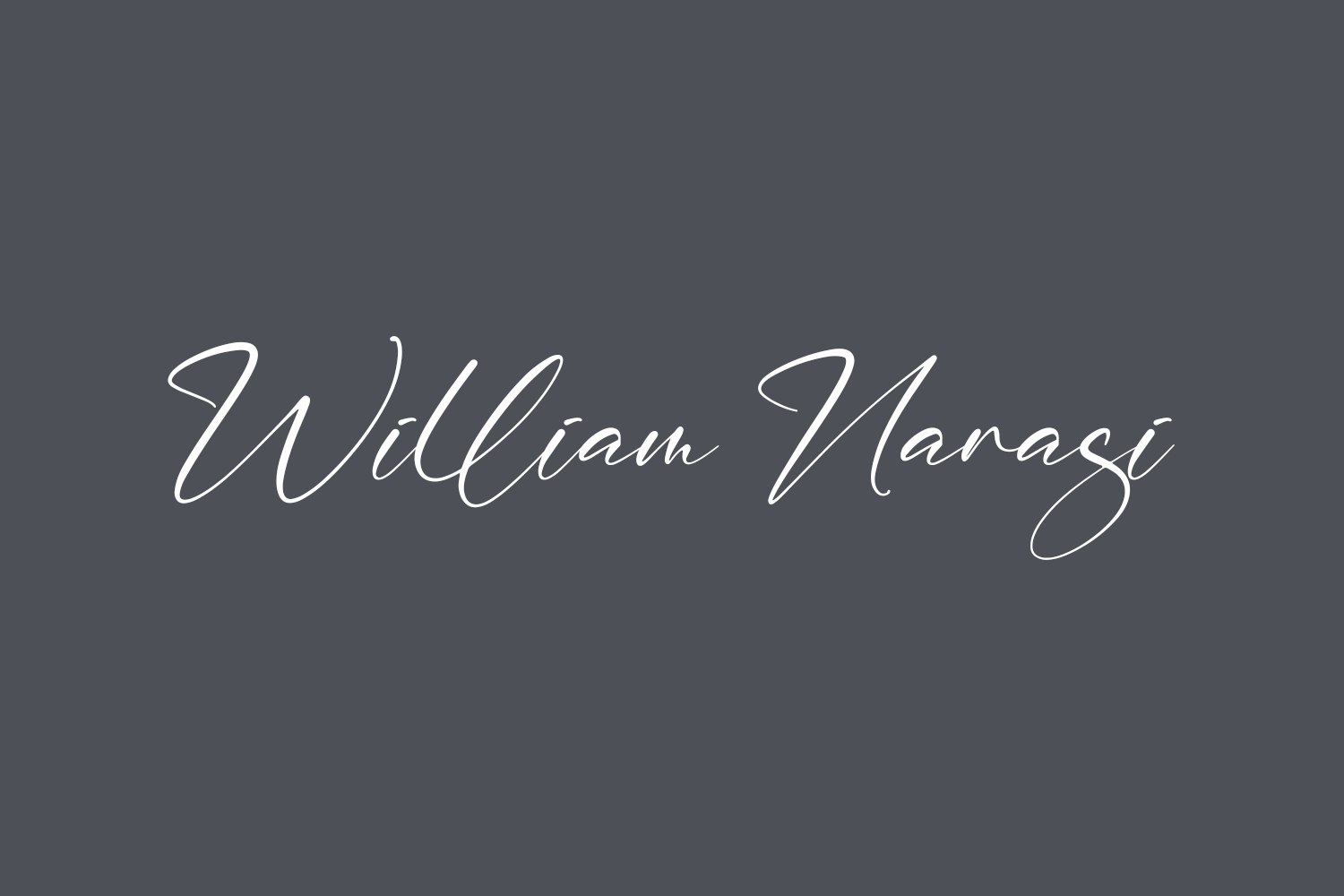
William Narasi Free Font is a stunning display of modern calligraphy that exudes emotion at every turn. The sweeping, fluid strokes of the letters seem to dance across the page, each one imbued with a sense of passion and grace. The elegant curves and loops of the script capture the soulful essence of calligraphy, making it a truly moving experience to behold. Whether you’re using it to craft heartfelt invitations, create beautiful wedding stationery, or simply to add a touch of sophistication to your everyday documents, William Narasi Free Font is sure to elevate your words and leave a lasting impact on those who see it.